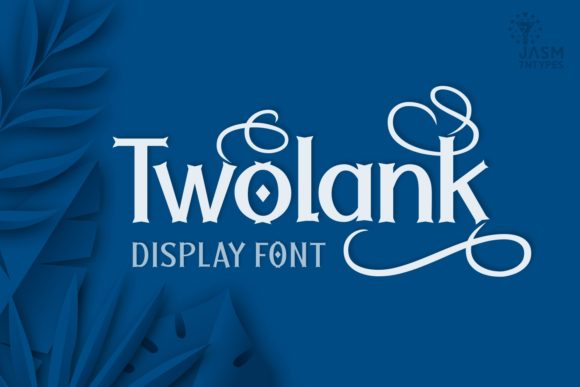
Twolank Font
Font Name : Twolank Font
Author : Jasm (7NTypes)
**Twolank: The Font That Transforms Your Creations**
Indulge in the whimsical world of Twolank, a display font that weaves magic into your designs. Its enchanting rounded characters dance across your screen, tempting you to embark on captivating creative journeys.
With Twolank, crafting becomes an effortless symphony of elegance. Its innate charm lends itself effortlessly to the art of handmade crafts, where every stroke tells a captivating tale.
Beyond its playful demeanor, Twolank unveils a treasure trove of possibilities. Adorn your designs with a touch of whimsicality through its exquisite swashes. These delicate flourishes cascade gracefully, adding a touch of enchantment to every letter.
Twolank's allure extends far beyond the digital realm. Its versatility shines in the realm of physical creations, making it the perfect companion for wedding invitations that exude romance and sophistication.
Whether you're an avid scrapbooker, an aspiring artist, or a social media enthusiast, Twolank is the font that ignites your imagination. Its essence captures the spirit of handwritten notes, breathing life into your heartfelt messages.
With Twolank, you'll create a world of enchanting designs that captivate hearts and ignite smiles. Its sweet nature and playful spirit transform your creations into cherished keepsakes.
Unlock the boundless creativity that lies within Twolank today. Let its magic inspire you, elevate your designs, and leave an unforgettable mark on the world of art.